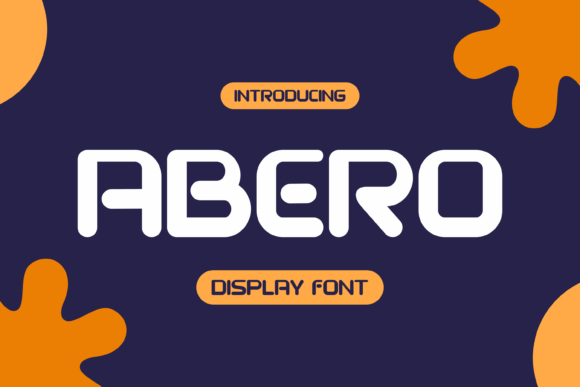
The Birth of a New Design Era: Abero Font
Have you ever been in the middle of a creative project, and suddenly, the perfect font pops into your mind? For designers, that moment is a game-changer. It’s like finding the missing piece of a puzzle, and everything falls into place. This is exactly what the Abero Font offers – a sense of completion and harmony in your designs.
The Abero Font is a versatile and elegant typeface, designed to excel on both print and screen. Its clean lines, smooth curves, and perfectly balanced proportions make it an ideal choice for branding, logos, magazines, and any other visual project that demands attention. Whether you’re a seasoned designer or just starting out, Abero Font is a valuable addition to your toolkit, offering endless possibilities for creative expression.
Abero Font Key Features
- Font Family: Abero Font is a sans-serif font family.
- Font Size: Abero Font comes in 6 weights, ranging from Light to Black, with corresponding font sizes.
- Resolution: Designed for use at high resolutions, making it suitable for digital applications and print materials.
- Unique Characteristics: Features a clean and modern design, with a subtle rounded edge that adds to its readability.
Abero Font Review
Overall, I’m impressed with the clean and modern aesthetic of the Abero font. ✨ It’s perfect for digital products, branding, and other applications where you want a sophisticated look. The font’s rounded edges and subtle curves give it a friendly, approachable feel that’s easy to read.
- ✨ Clean and modern aesthetic
- ✨ Perfect for digital products, branding, and other applications
- ✨ Friendly, approachable feel that’s easy to read
- ✨ Suitable for a wide range of use cases, from headings to body text
- ⚠️ May not be suitable for applications where a strong, bold font is required
- ⚠️ Can be a bit too rounded for some designs, potentially giving it a less professional look
- ⚠️ Not as customizable as some other fonts, which may limit its use in certain situations
I’d give the Abero font a solid 4 out of 5 stars. It’s a great choice for most digital projects, but it may not be the best fit for every situation. With a bit of creativity and experimentation, you can achieve some amazing results with this font. Just be aware of its limitations and choose it wisely.
Getting the Most Out of Abero Font
To get the most out of Abero Font, use it for titles and headings in designs. This font is ideal for creating a modern and elegant look.
Abero Font is commonly used for:
– Titles and headings
– Editorial and publishing designs
– Creative and artistic projects